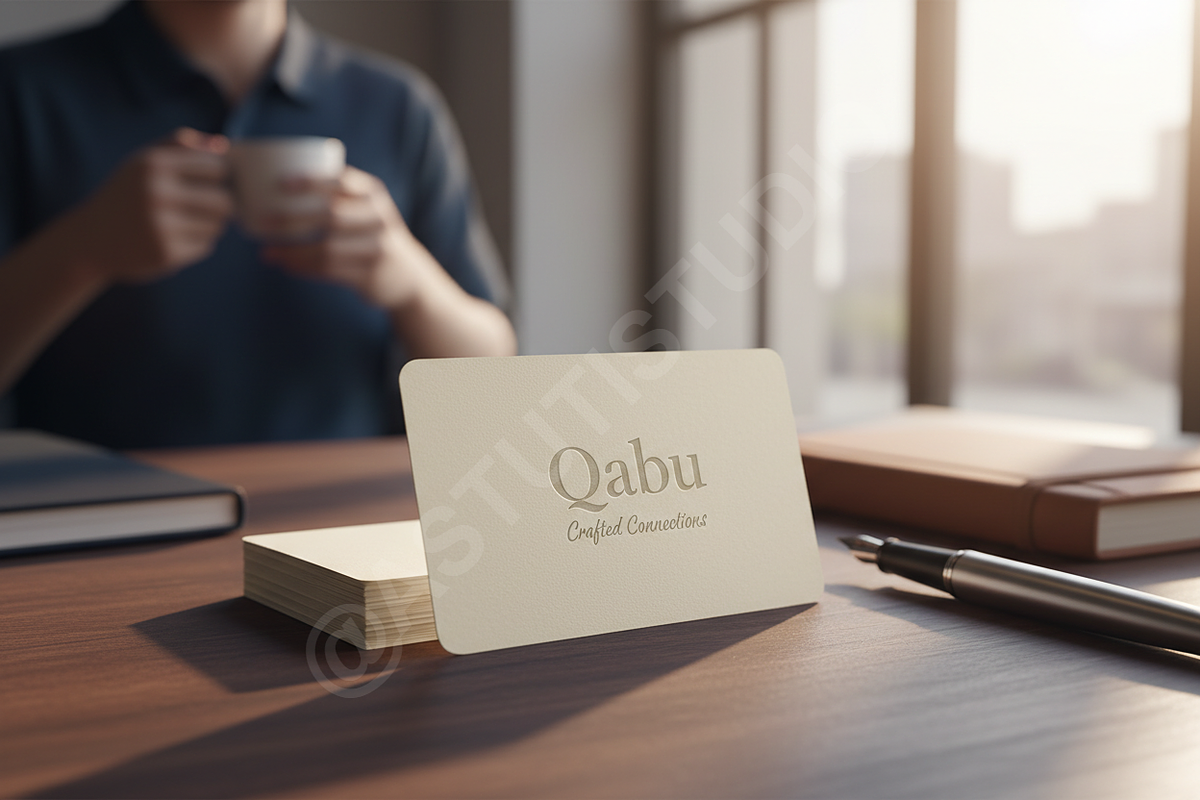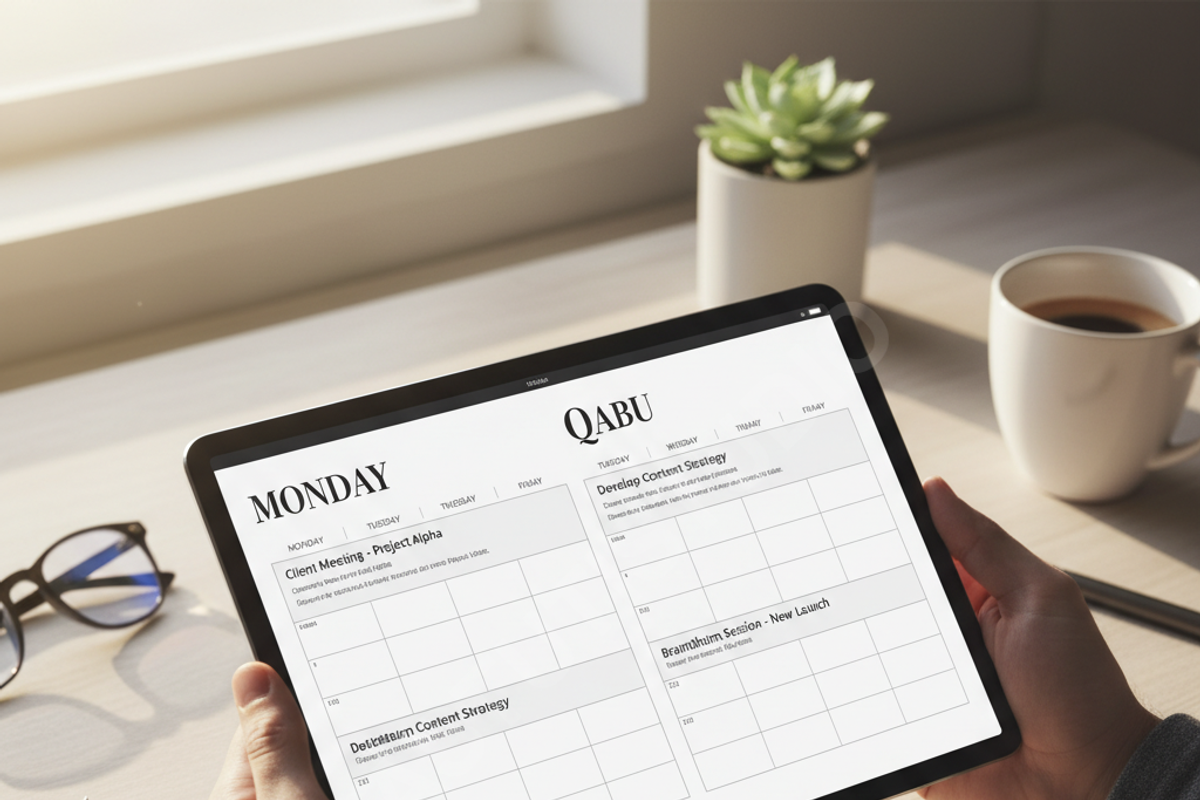
Qabu | Sophisticated Serif Typeface
Qabu is a refined serif font meticulously crafted for those who demand sophistication and class. Balancing timeless proportions with a contemporary edge, Qabu brings an air of exclusivity to any design environment. It is the perfect choice for luxury branding, high-end editorial layouts, and curated social media content where elegance is paramount.
- Elegant high-contrast letterforms
- Sophisticated character set with sleek terminals
- Comprehensive multilingual support
- Specialized ligatures for custom typographic flair
- Optimised kerning for professional readability